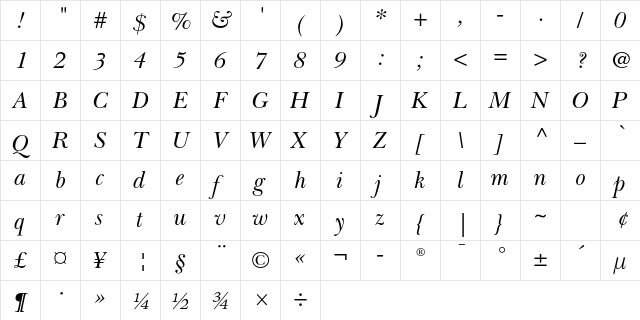
Baskerville Cyrillic LT Std Inclined
| Designer | Linotype Staff |
Design Context for Baskerville Cyrillic LT Std Typeface
Baskerville Cyrillic LT Std is a composed and adaptable typeface that performs quietly and consistently across a wide range of design contexts. Its slender proportions lend an understated elegance to any composition.